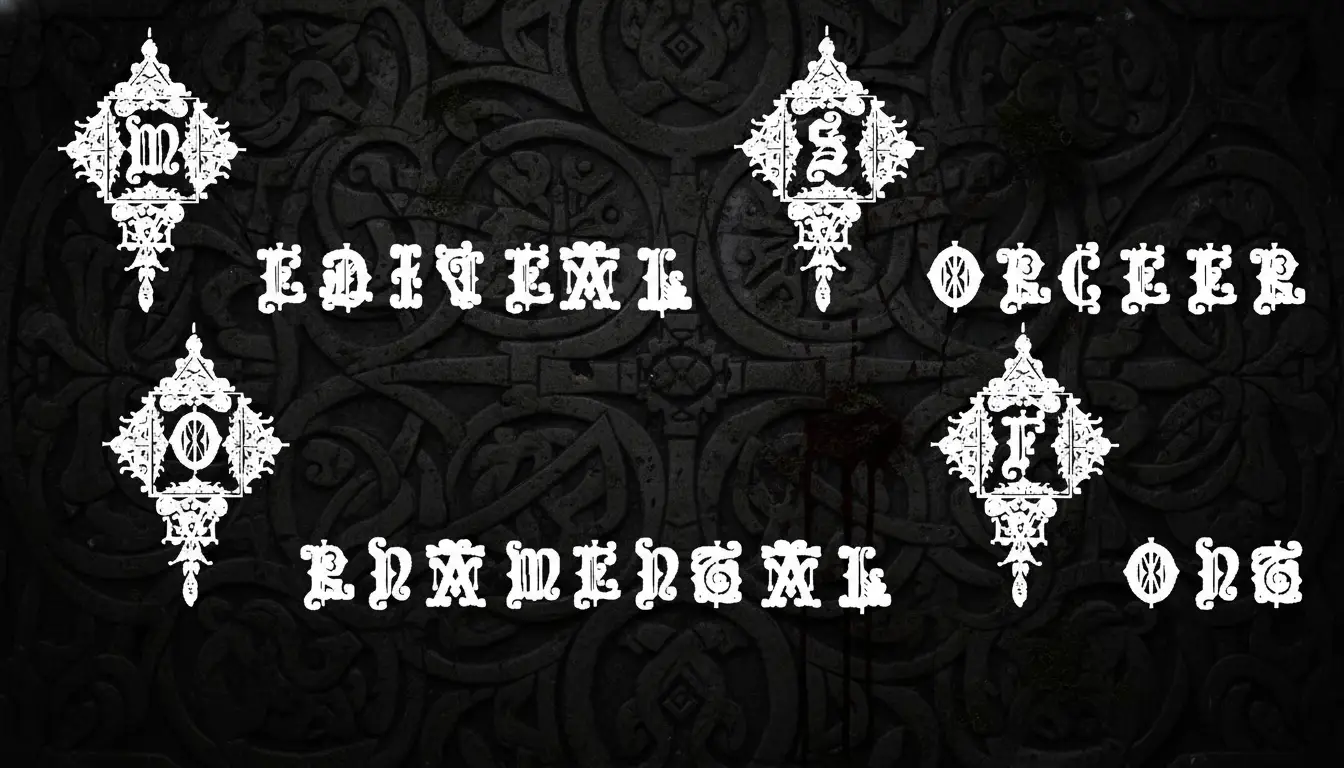
Medieval Sorcerer Ornamental Font
Medieval Sorcerer Ornamental
Medieval Sorcerer Ornamental is a gothic font designed by ~Sorcerer~. Sharp, dark and dramatic, it follows the blackletter tradition of old European manuscripts. It's a free download, and you can try it with your own text in the preview above first.
What You Can Type With Medieval Sorcerer Ornamental
You get every letter from A to Z in both cases and all the numbers from 0 to 9, which means Medieval Sorcerer Ornamental can handle full sentences, dates and prices. Punctuation is limited, so look at the character map if you need a specific symbol. It doesn't include accented letters such as é or ñ, which makes it an English-only font.
Where Medieval Sorcerer Ornamental Works Best
Think of Medieval Sorcerer Ornamental for tattoos, metal band logos and dark fantasy titles. Blackletter is very hard to read in all caps, so type in normal upper and lowercase.
Does Medieval Sorcerer Ornamental support accented letters?
No. Medieval Sorcerer Ornamental has no accented letters such as é, ñ or ü, so it's best for English text.